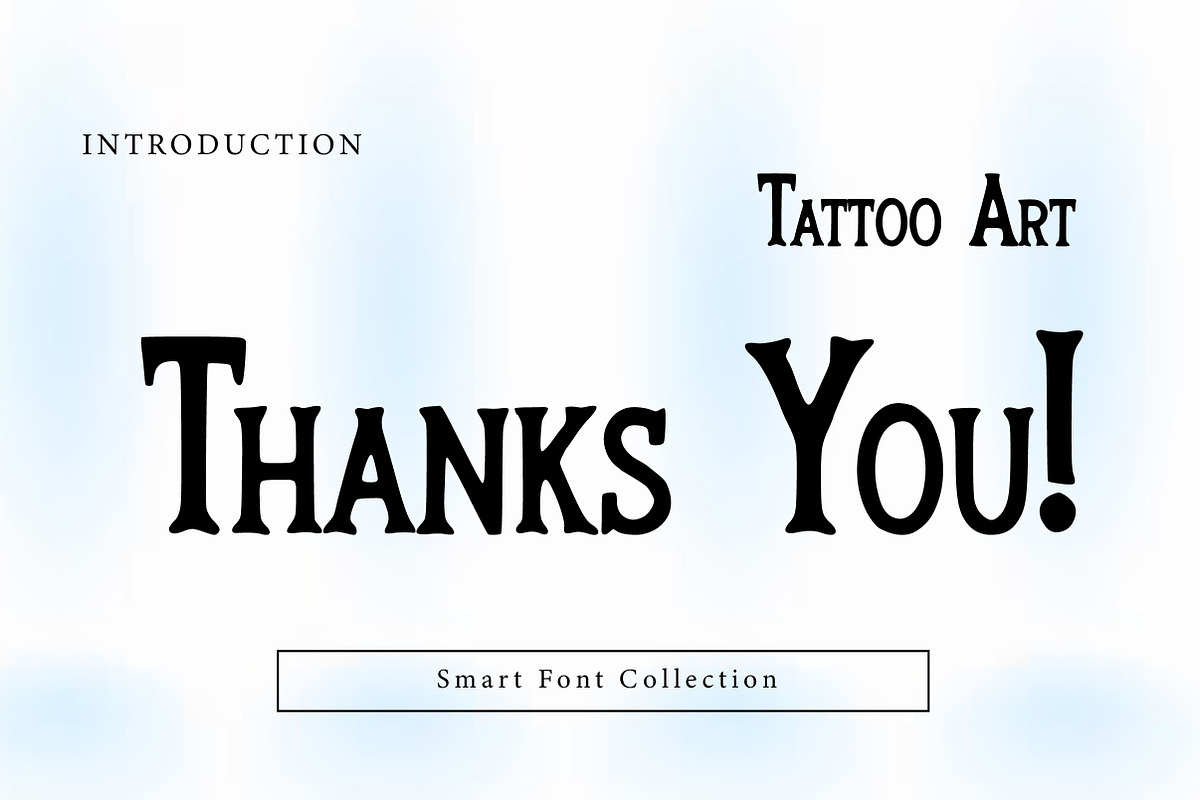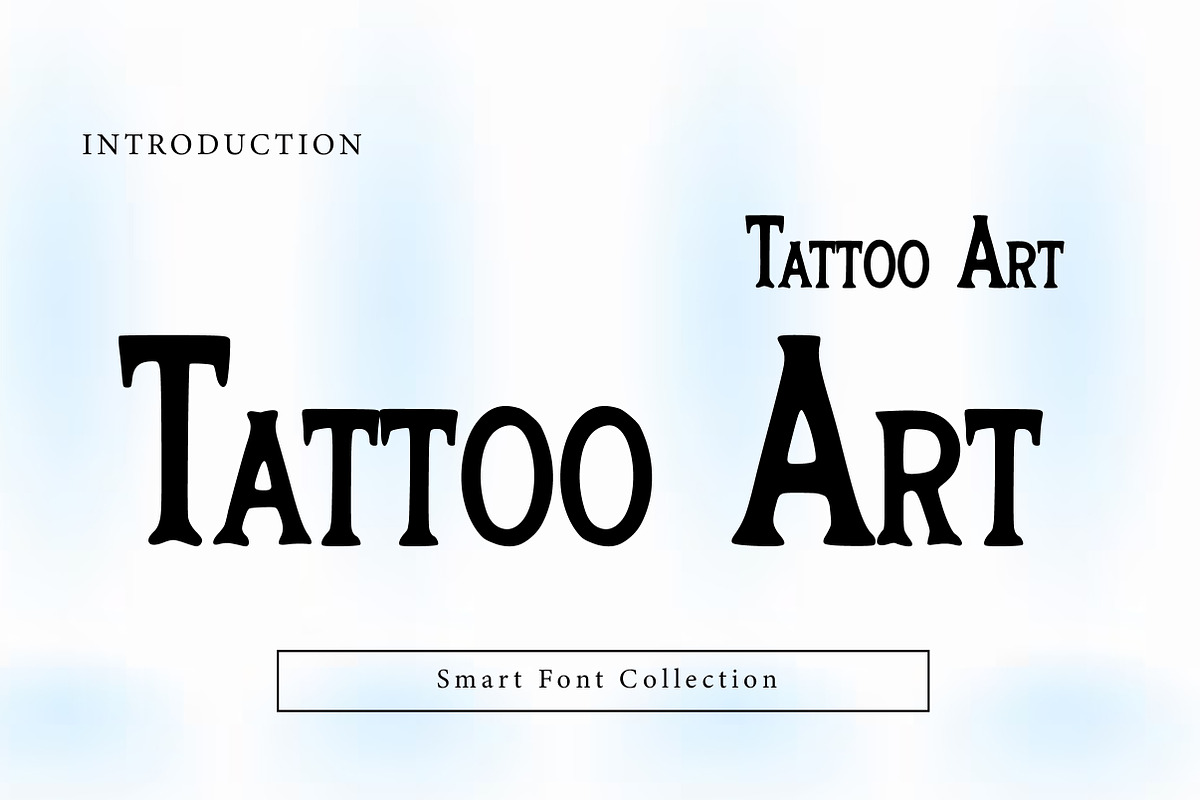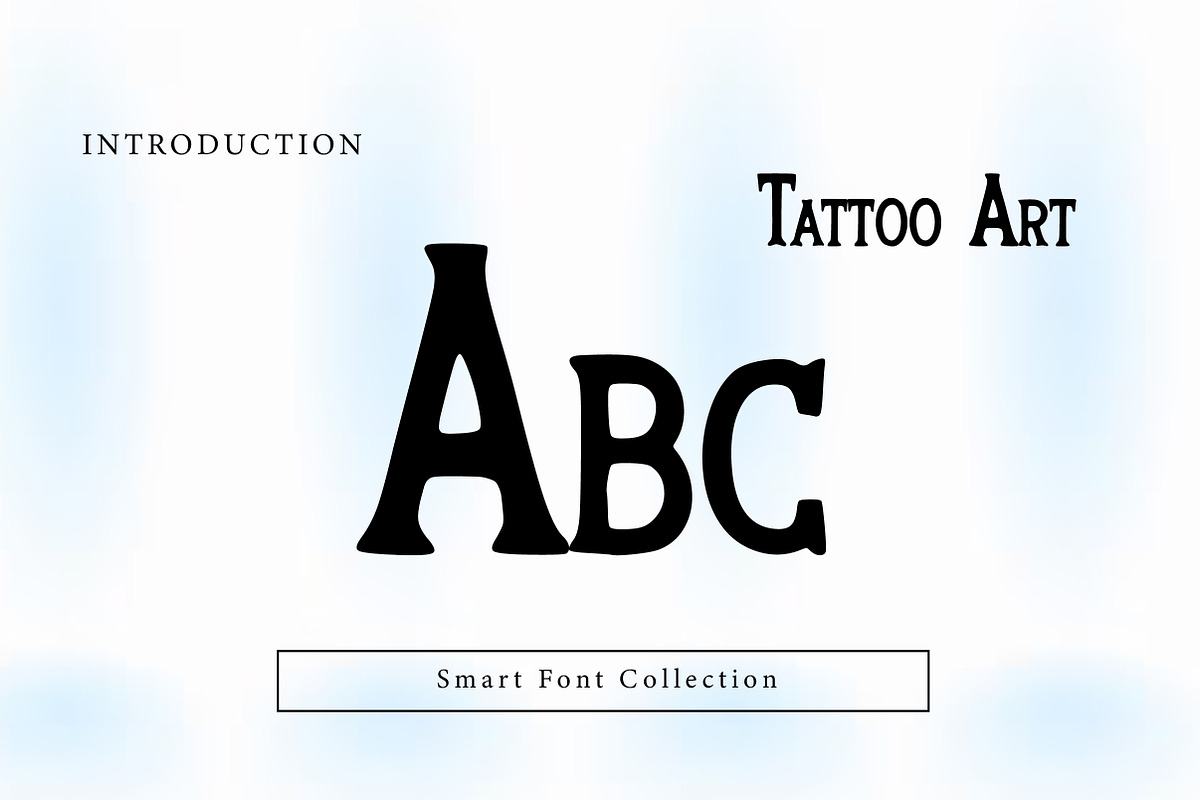
Tattoo Art
Tattoo Art is a bold, expressive tattoo-style display serif font inspired by classic tattoo lettering and old-school ink art. With strong strokes, decorative curves, and a vintage edge, it’s perfect for tattoo designs, logos, posters, apparel, band artwork, labels, packaging, and statement headlines. Tattoo Art delivers a timeless, rebellious, and handcrafted attitude rooted in traditional tattoo culture.